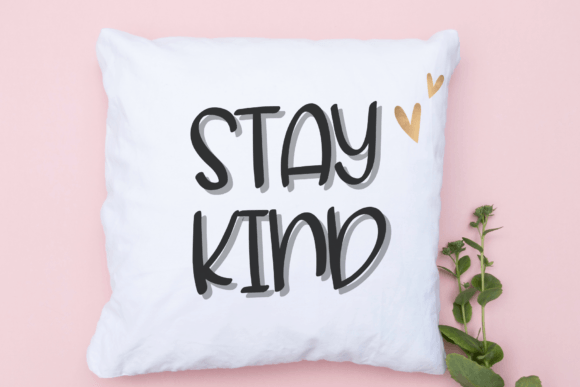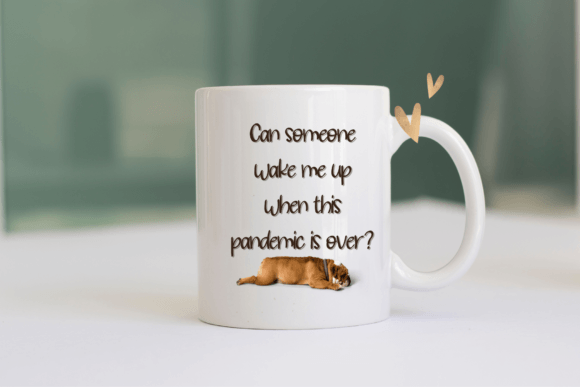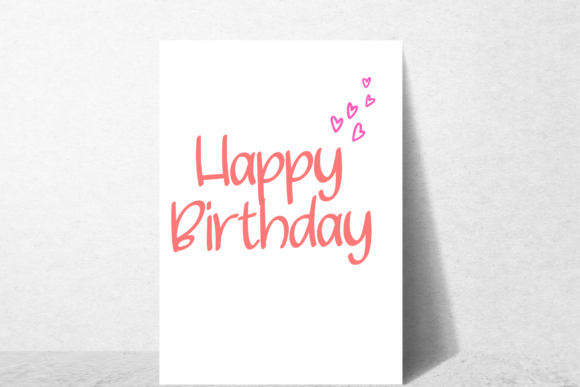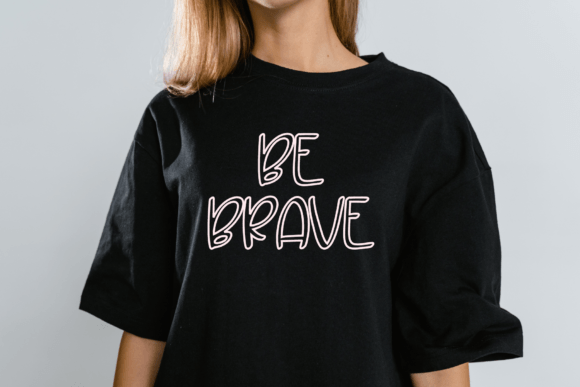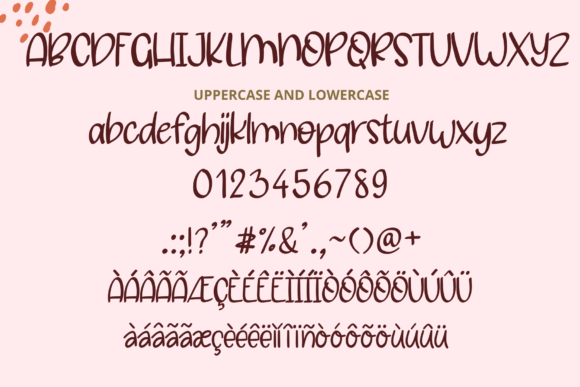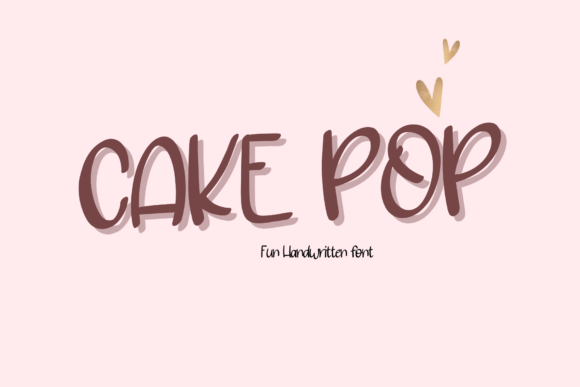
Cake Pop Font: Elevate Your Designs with Elegance and Class
Are you a designer or crafter looking for a font that can add a touch of elegance and sophistication to your projects? Look no further than Cake Pop Font! This friendly handwritten font is perfect for a wide range of design applications, from logos and wedding designs to social media posts and product packaging.
What is Cake Pop Font?
Cake Pop Font is a beautiful, handwritten font that is designed to bring a sense of warmth and friendliness to your designs. Its elegant and classy look makes it perfect for projects where you want to make a lasting impression. Whether you’re working on a logo, invitation, or product design, Cake Pop Font is sure to impress.
Key Features of Cake Pop Font
- Friendly and approachable: Cake Pop Font has a warm and inviting feel that makes it perfect for designs where you want to connect with your audience.
- Elegant and classy: This font is sophisticated and refined, making it ideal for high-end designs and luxury brands.
- Handwritten: Cake Pop Font has a personal and human touch that sets it apart from more traditional fonts.
- Versatile: This font can be used for a wide range of design projects, from digital designs to print materials.
Uses for Cake Pop Font
Cake Pop Font is a versatile font that can be used for a wide range of design projects, including:
- Logos: Create a lasting impression with a logo that features Cake Pop Font.
- Wedding designs: Make your wedding designs, such as invitations and stationery, truly special with this beautiful font.
- Social media posts: Elevate your social media posts with a font that is both elegant and engaging.
- Advertisements: Use Cake Pop Font to create eye-catching advertisements that grab attention.
- Product packaging: Add a touch of elegance to your product packaging with this beautiful font.
- Product designs: Use Cake Pop Font to create stunning product designs that showcase your brand’s personality.
- Labels: Create labels that are both functional and beautiful with Cake Pop Font.
- Photography: Use this font to create stunning watermarks or overlays for your photos.
- Invitations: Make your invitations truly special with Cake Pop Font.
- Stationery: Elevate your stationery designs with a font that is both elegant and refined.
Why Choose Cake Pop Font?
There are many fonts to choose from, but Cake Pop Font stands out for its unique combination of elegance and friendliness. Here are just a few reasons why you should consider choosing Cake Pop Font for your next design project:
- Unique and distinctive: Cake Pop Font is a one-of-a-kind font that will help your designs stand out.
- Easy to read: This font is clear and easy to read, making it perfect for designs where you want to communicate a message.
- Customizable: Cake Pop Font can be customized to fit your brand’s personality and style.
Tips for Using Cake Pop Font
Here are a few tips for getting the most out of Cake Pop Font:
- Use it sparingly: While Cake Pop Font is beautiful, it’s best used sparingly to avoid overwhelming your design.
- Experiment with colors: Try out different colors and textures to see how they work with Cake Pop Font.
- Pair it with other fonts: Experiment with pairing Cake Pop Font with other fonts to create a unique look.
- Make it bold: Don’t be afraid to make Cake Pop Font bold and eye-catching.
Cake Pop Font is a beautiful, elegant, and friendly font that is perfect for designers and crafters looking to add a touch of sophistication to their projects. With its wide range of uses, customizable design, and easy-to-read style, Cake Pop Font is a great choice for anyone looking to elevate their designs. So why wait? Try Cake Pop Font today and see the difference it can make!